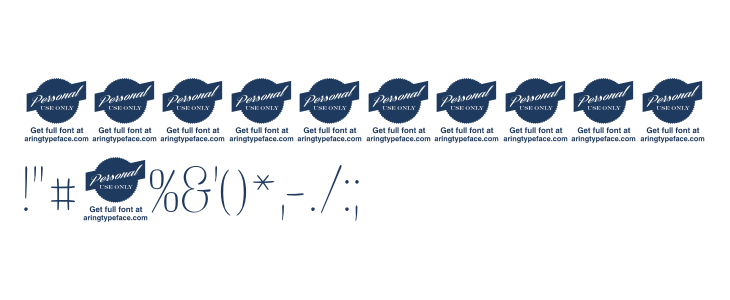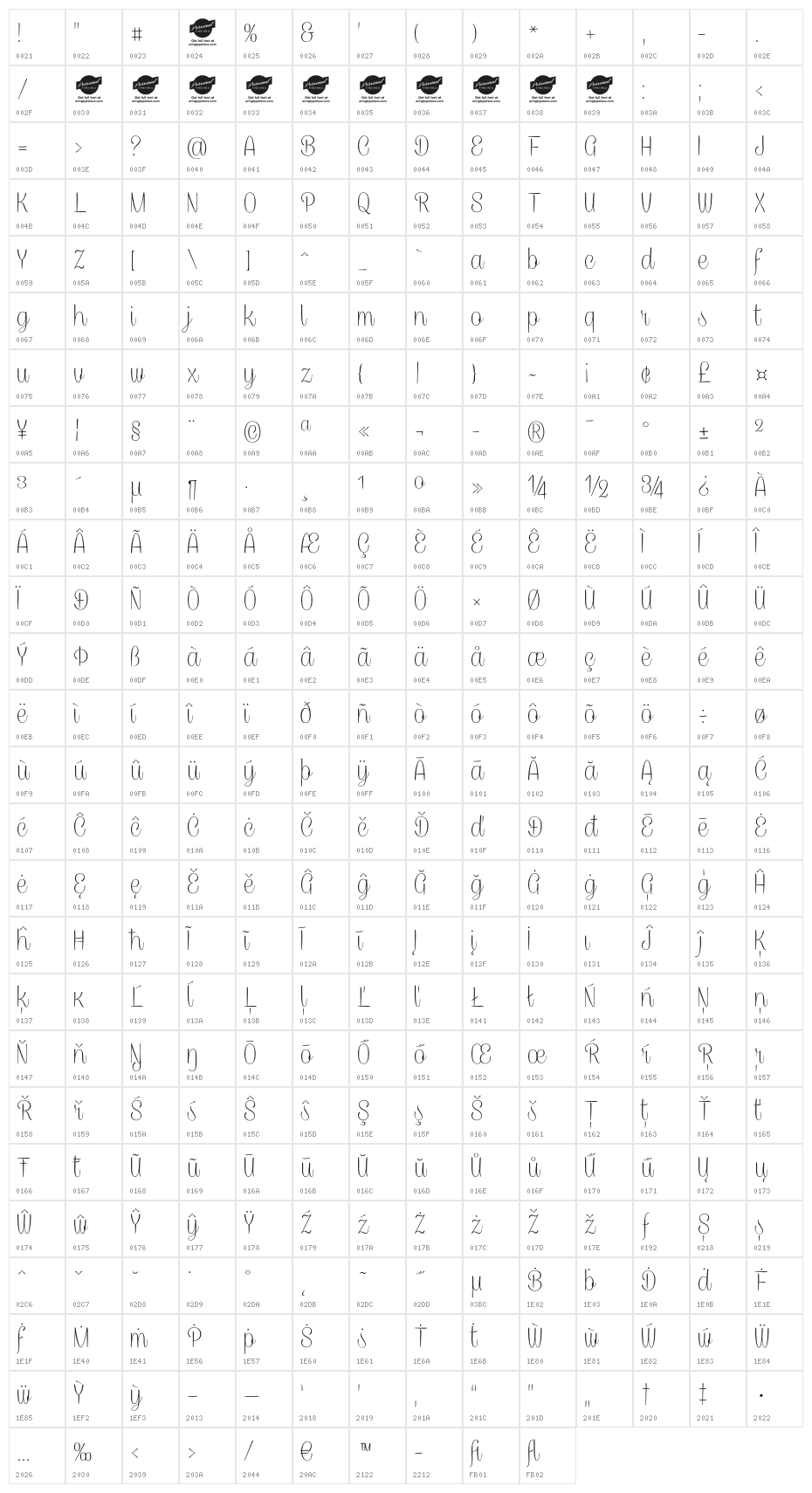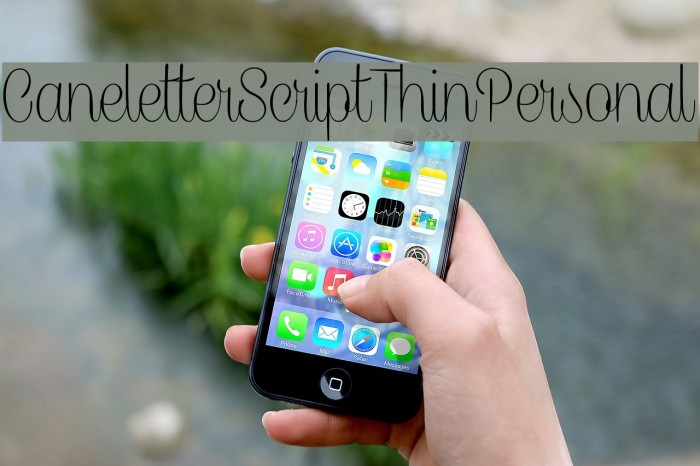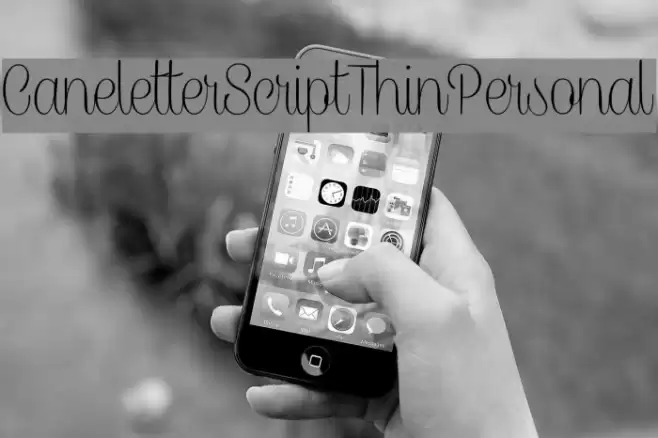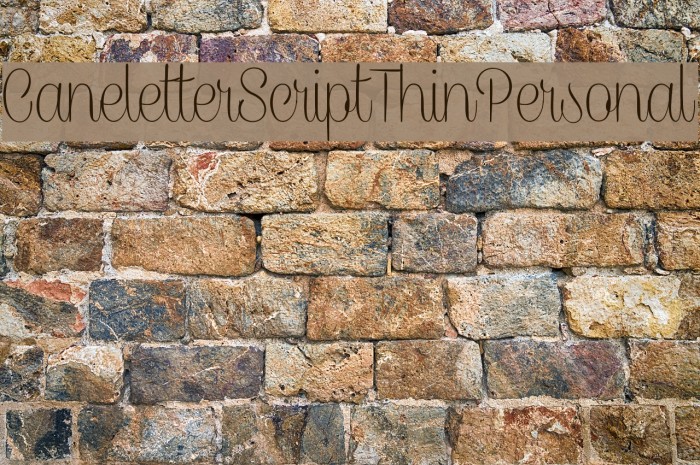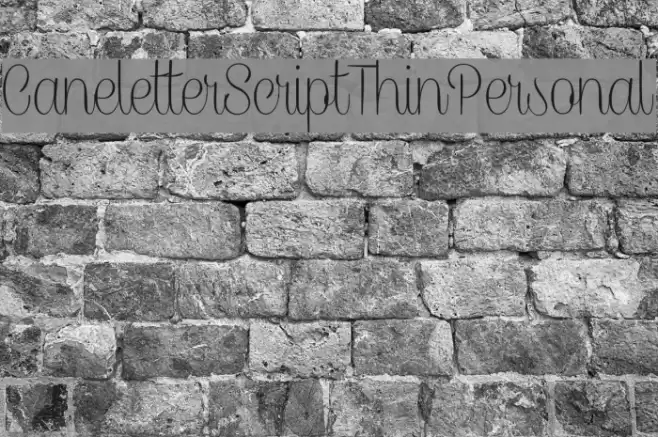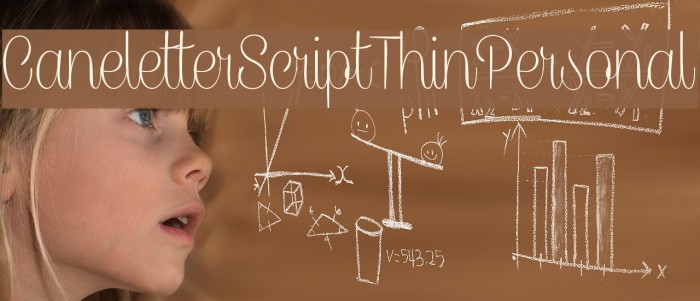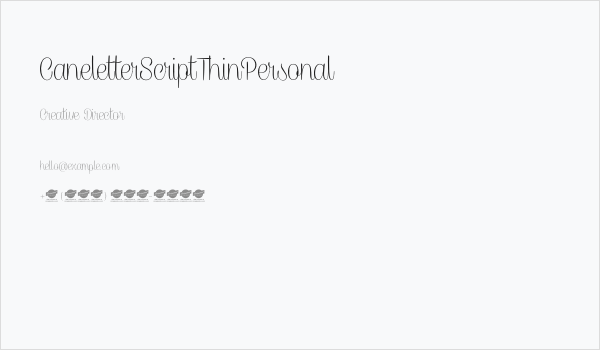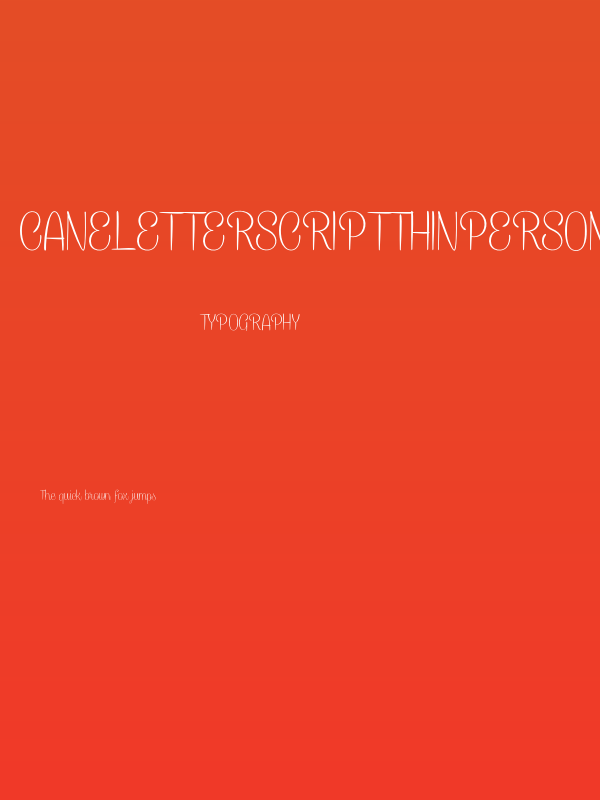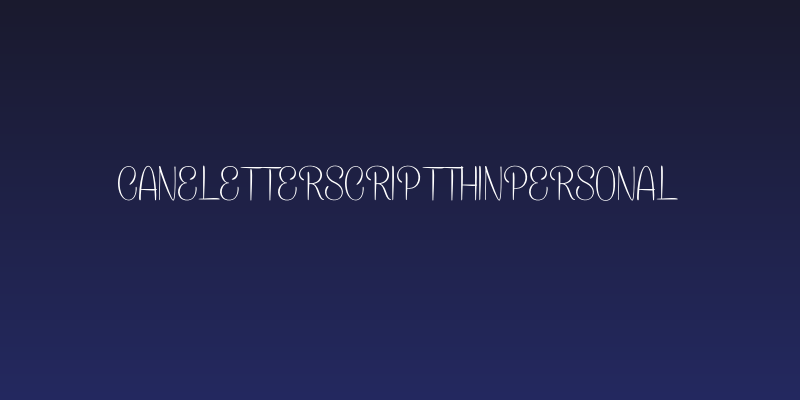
CaneletterScriptThinPersonal Font
CaneletterScriptThinPersonal Description
This font features a delicate and elegant script style with thin, flowing lines that create a sense of grace and sophistication. The uppercase letters are tall and slender, with a slight slant that adds a dynamic feel. The lowercase letters maintain a consistent flow, enhancing readability while preserving the script's artistic flair. The numerals and special characters are designed to complement the overall aesthetic, ensuring a cohesive look across all text. This font's thin strokes and airy design make it ideal for projects that require a touch of elegance and refinement.
Overall StyleElegant
Use CaseLogos, Invitations, Decorative text
Proposed ProjectsIdeal for wedding invitations, elegant branding, greeting cards, and upscale packaging.